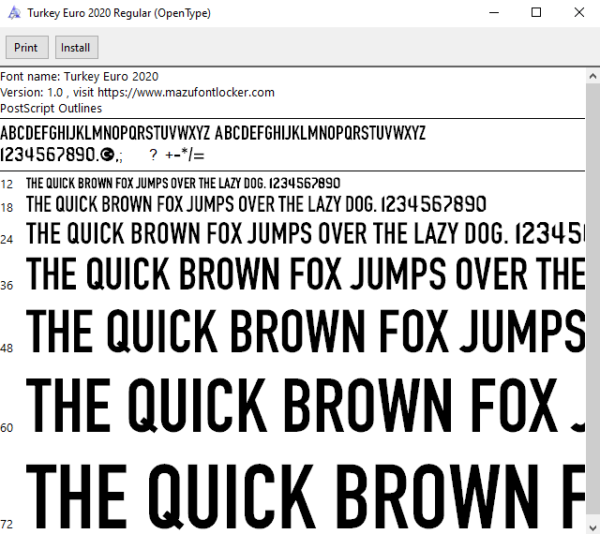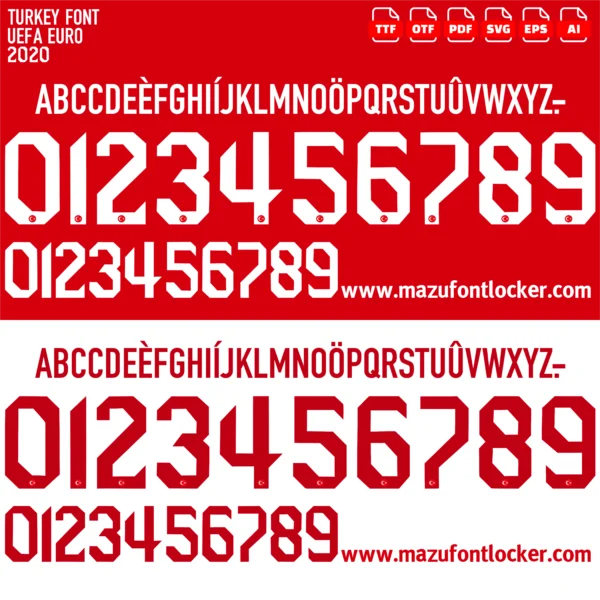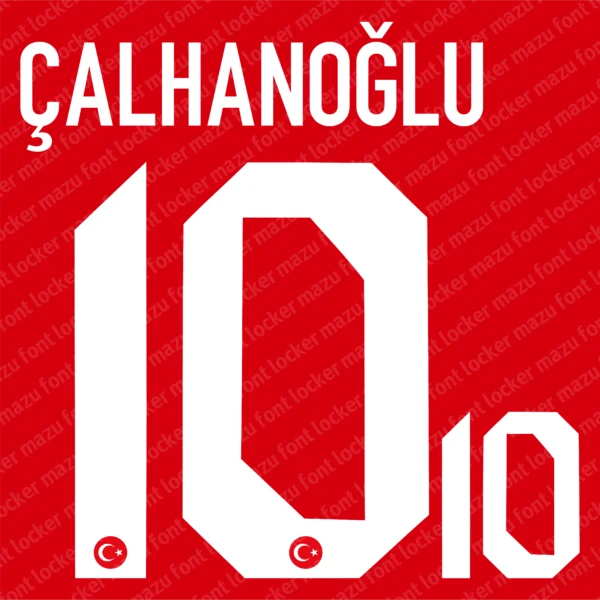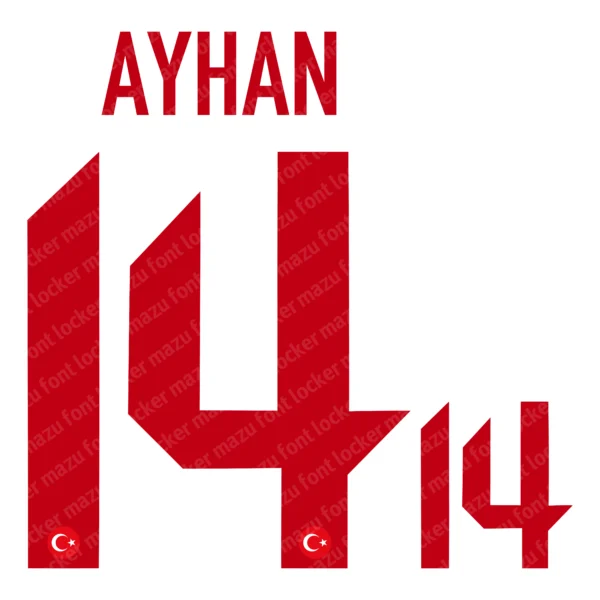
Turkey Euro 2020 Font Vector – Epic Ay-Yıldızlılar Masterpiece
This font captures the bold, fearless, electric, and ultra-premium lettering that perfectly embodies Turkey’s iconic Turkish passion fused with the ruthless, fiery, and unstoppable spirit of the Crescent Stars — delivering unmatched intensity, raw emotion, elite craftsmanship, and pure Red-White fire for premium jersey mockups, epic football designs, spectacular sports visuals, standout fan creations, and professional branding projects.
Turkey Euro 2020 Font Vector – Authentic Crescent Stars Typeface
The Turkey Euro 2020 Font Vector is a premium typeface that accurately recreates the official match lettering worn by the Turkey national team during their memorable Euro 2020 campaign. This high-quality vector font kit captures the bold, dynamic, and distinctive typography that reflects the pride, passion, and rich football heritage of the Crescent Stars (Ay-Yıldızlılar).
Designed for professional designers and passionate Turkey supporters, the Turkey Euro 2020 Font Vector delivers perfect authenticity for creating realistic jersey mockups, fan merchandise, matchday posters, social media graphics, and classic football content. It pairs beautifully with Turkey’s legendary red and white kits featuring the iconic crescent and star emblem.
This font stands out because of its sharp vector precision and strong national team identity. Every letter and number is crafted to match the exact style used on the players’ shirts during the Euro 2020 tournament. Whether you are creating professional kit templates or celebrating Turkey’s heroic run, the Turkey Euro 2020 Font Vector delivers an authentic match-ready appearance.
The letterforms in the Turkey Euro 2020 Font Vector are bold, clean, and highly readable. The characters feature balanced proportions and sharp detailing that create a professional appearance on both home and away jerseys while maintaining the classic yet fiery football aesthetic of the Euro 2020 era.
The numerals feature strong geometric construction with excellent visibility and balance. Every number is carefully vectorized to ensure flawless scaling across digital graphics, print projects, and jersey applications.
• Full uppercase A–Z and numbers 0–9 in authentic Turkey Euro 2020 style
• Turkey crest glyph – Press the “:” (colon) symbol to insert the Turkey crest
• Create highly realistic Turkey Euro 2020 jersey mockups with authentic lettering
• Design professional squad announcements, posters, and match graphics
• Produce custom Turkey-themed merchandise and fan artwork
• Create engaging social media content for Instagram, TikTok, Facebook, and YouTube
• Includes authentic styling inspired by official Euro 2020 match shirts
Turkey Euro 2020 Campaign
The Euro 2020 tournament (played in 2021) will always be remembered as one of the most passionate campaigns in Turkey’s recent football history. The Crescent Stars delivered thrilling performances in Group A and reached the quarter-finals, showcasing fighting spirit, tactical discipline, and the never-say-die attitude that defines Turkish football.
Led by coach Şenol Güneş, stars like Burak Yılmaz, Hakan Çalhanoğlu, and Çağlar Söyüncü inspired a nation and created unforgettable memories for fans across the globe. The campaign further strengthened Turkey’s reputation as a dangerous and competitive force in European football.
The Turkey Euro 2020 Font Vector is an independently designed typeface package. It is carefully crafted to replicate the official shirt lettering style used during the Euro 2020 tournament. This font kit is ideal for football-themed creative projects, fan artwork, jersey concepts, and professional sports graphics.